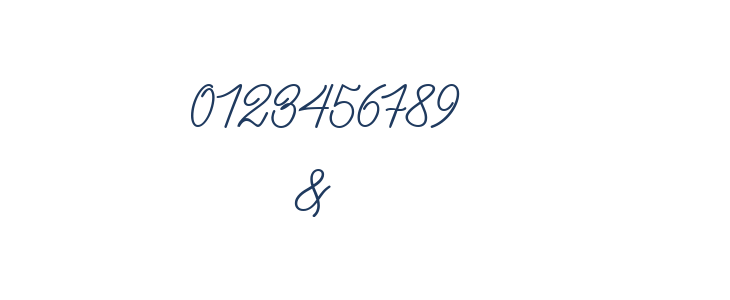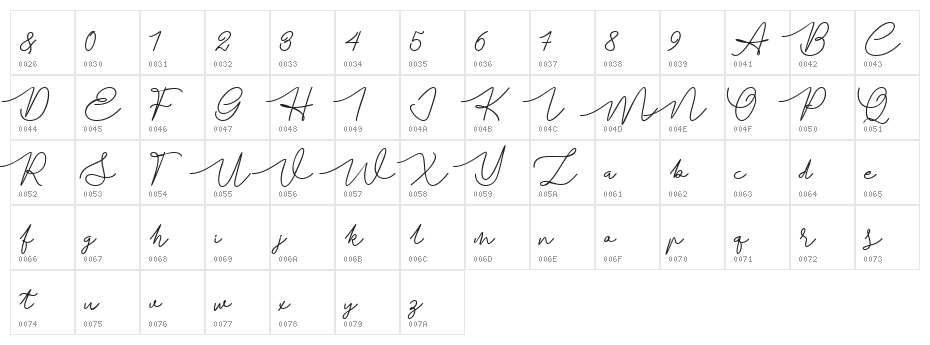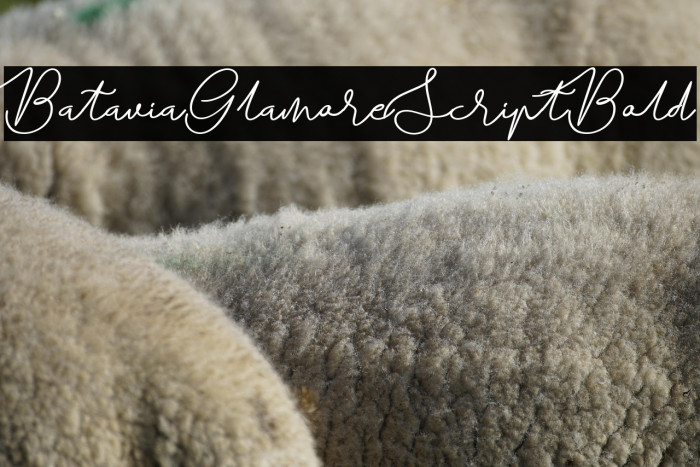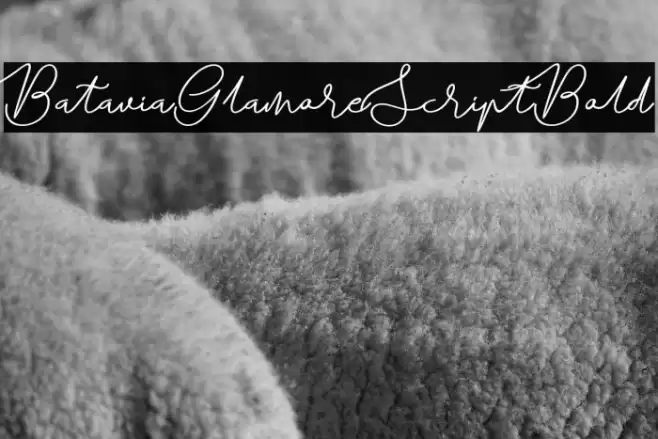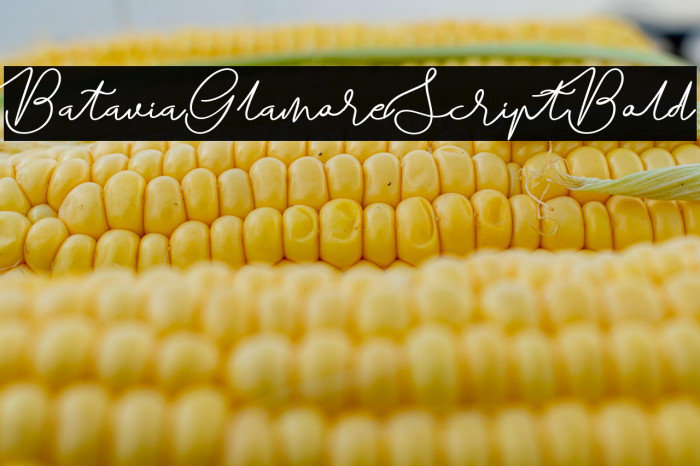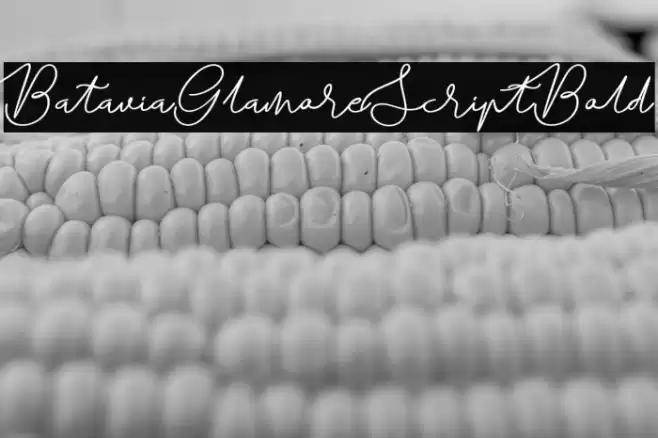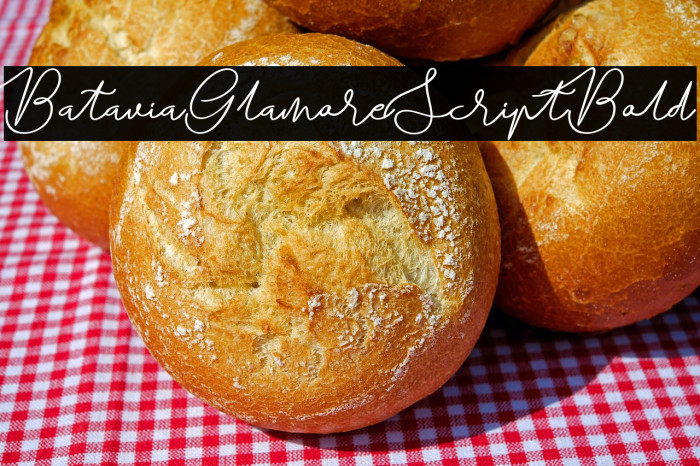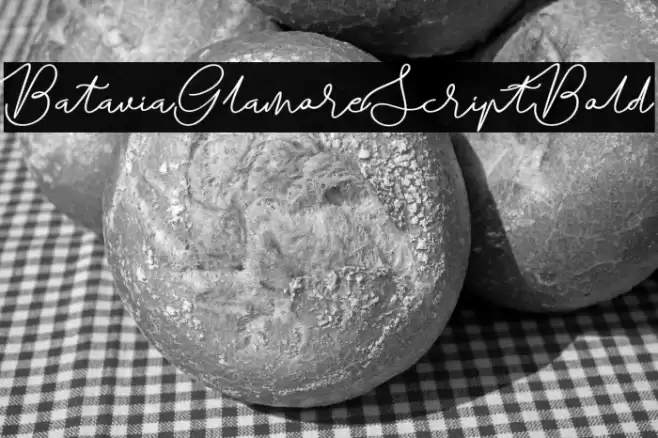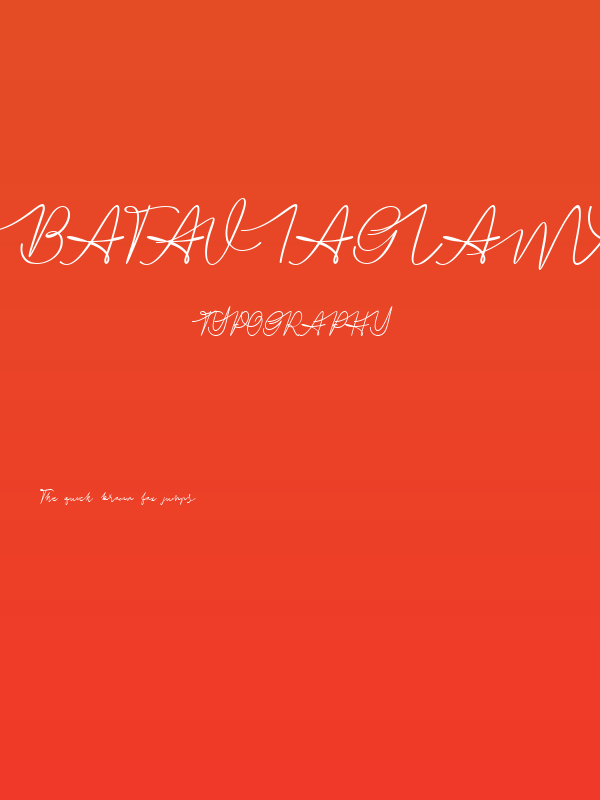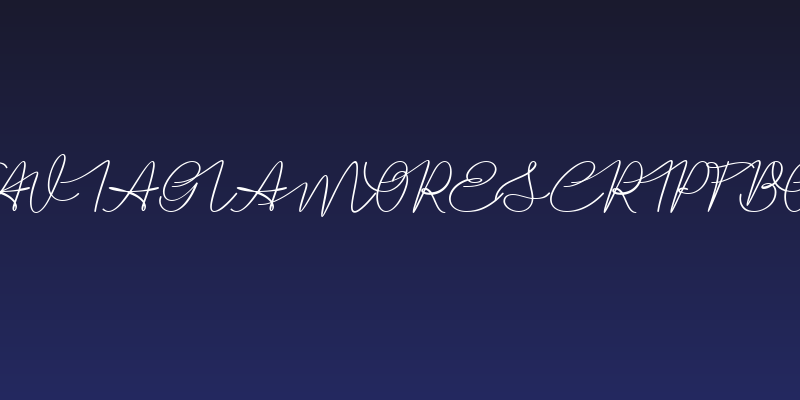
BataviaGlamoreScript-Bold Font
BataviaGlamoreScript-Bold Description
This elegant script font features a flowing, cursive style with smooth, connected strokes that create a sense of movement and grace. The uppercase letters are slightly more elaborate, with decorative loops and flourishes, while the lowercase letters maintain a more consistent, streamlined appearance. The numerals and special characters are designed to complement the overall script style, ensuring a cohesive look across all text elements. This font's bold weight adds a touch of emphasis, making it suitable for various design applications where a touch of sophistication is desired.